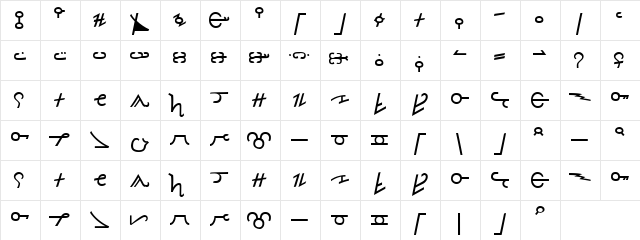
Thorass Normal
Design Context for Thorass Typeface
Thorass is a composed and adaptable typeface that performs quietly and consistently across a wide range of design contexts.